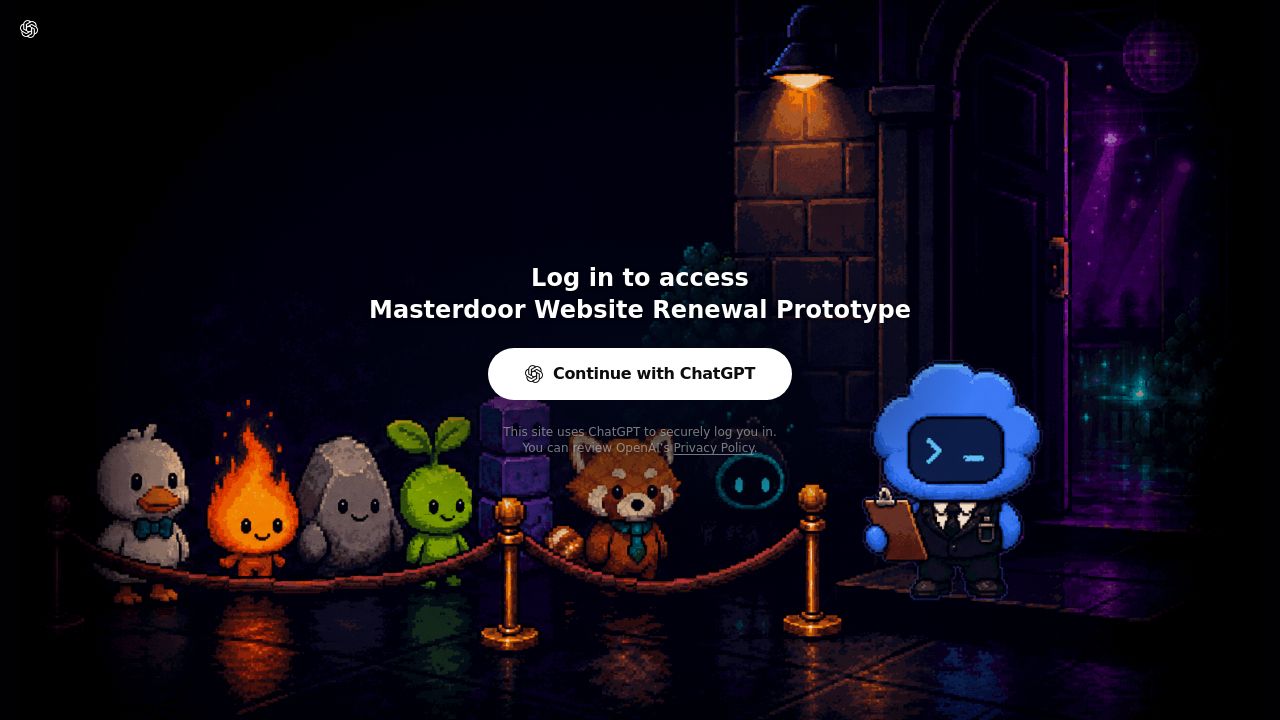
Masterdoor Website Renewal Prototype
What fonts does Masterdoor-renewal-review use?
No primary web font was detected on Masterdoor-renewal-review.masterdoorvn.chatgpt.site - its CSS only lists Segoe UI as fallbacks. 1 font detected, last checked Sep 28, 2026.
The Masterdoor website renewal prototype focuses on providing a seamless user experience for its audience in the home improvement sector. While no primary fonts were detected, the fallback font, Segoe UI, plays a crucial role in ensuring readability and familiarity. This choice suggests a commitment to clarity and accessibility, reflecting the brand's dedication to helping customers make informed decisions about their home renovation needs.
Frequently asked questions about Masterdoor-renewal-review.masterdoorvn.chatgpt.site's fonts
What fonts does Masterdoor-renewal-review.masterdoorvn.chatgpt.site use?
No primary web font was detected on Masterdoor-renewal-review.masterdoorvn.chatgpt.site - its CSS only lists Segoe UI as fallbacks. 1 font detected, last checked Sep 28, 2026.
What fonts are used on masterdoor-renewal-review.masterdoorvn.chatgpt.site?
No primary fonts were detected on masterdoor-renewal-review.masterdoorvn.chatgpt.site. However, the fallback font used is Segoe UI.
How does Segoe UI compare to other fonts?
Segoe UI is designed for clarity and readability, making it a popular choice for web interfaces. Compared to alternatives like Arial or Helvetica, it offers a more modern aesthetic.
What is the CSS font stack for masterdoor-renewal-review.masterdoorvn.chatgpt.site?
The top CSS font stack for the site includes system-ui, -apple-system, BlinkMacSystemFont, 'Segoe UI', and sans-serif, ensuring broad compatibility across devices.
What styles and weights does Segoe UI offer?
Segoe UI offers a variety of styles and weights, including regular, bold, and italic. This versatility allows for effective typographic hierarchy in web design.